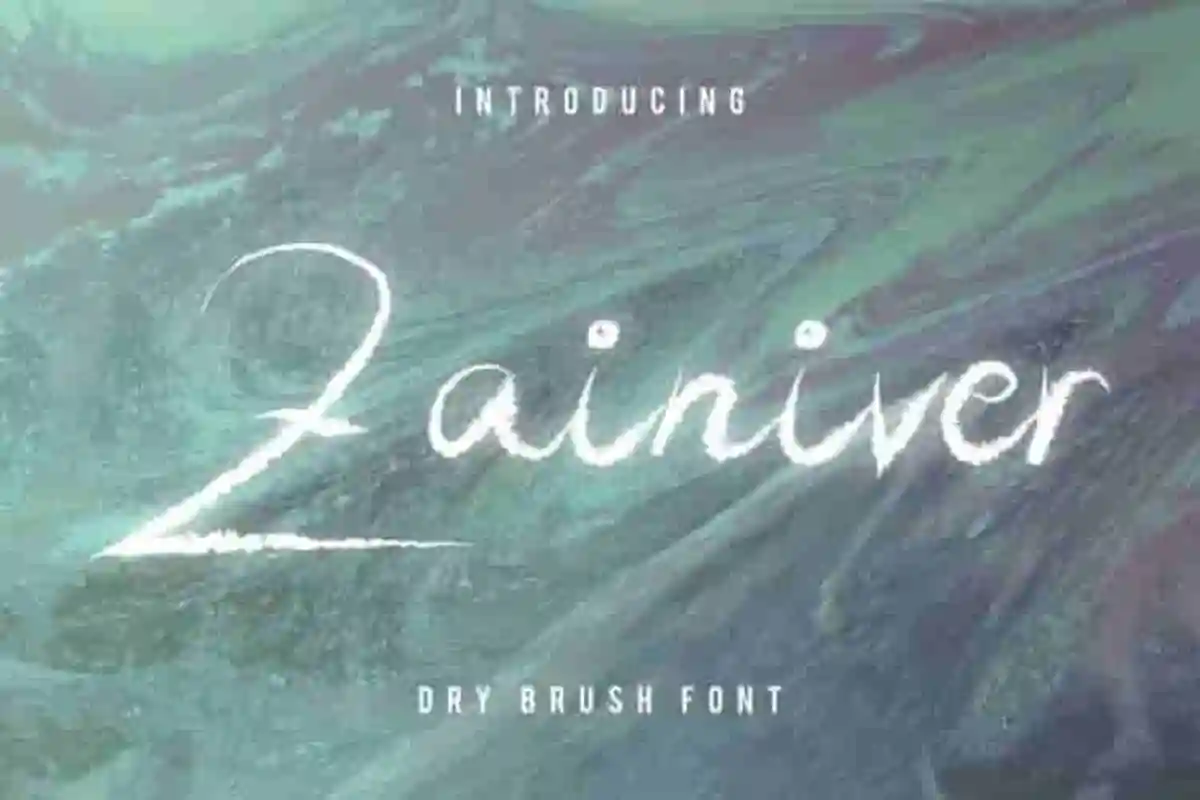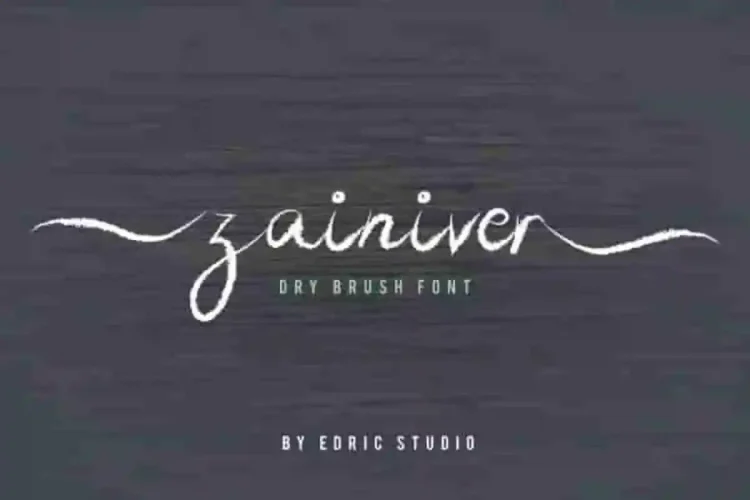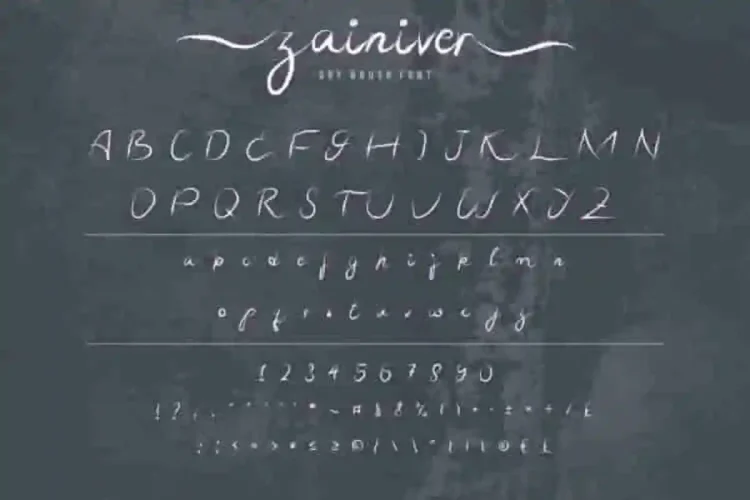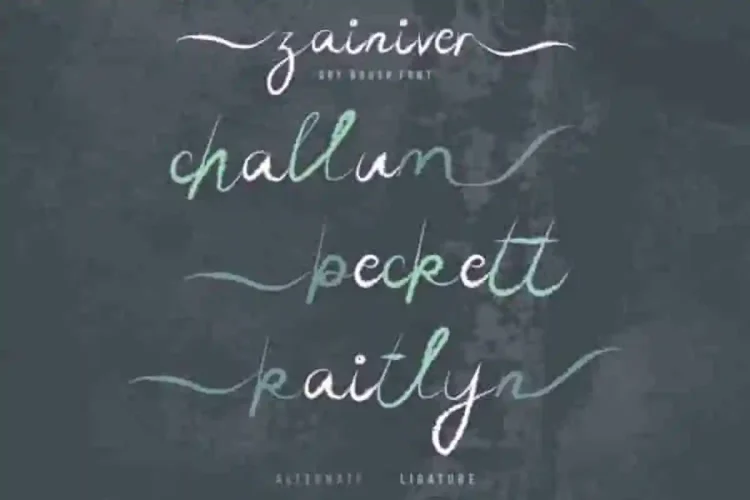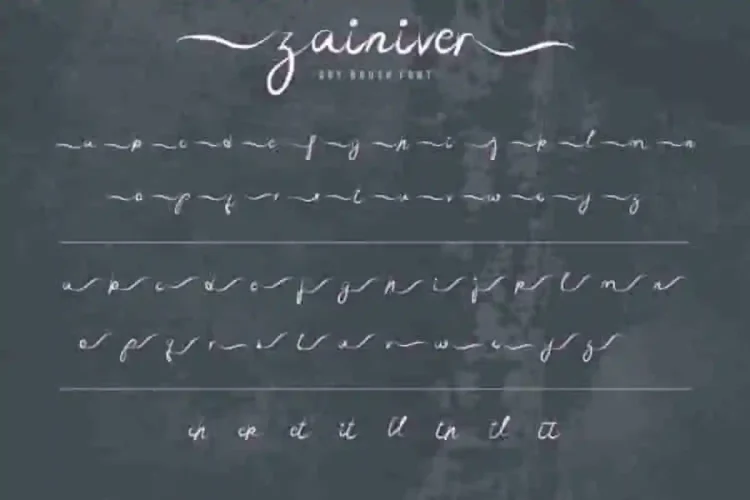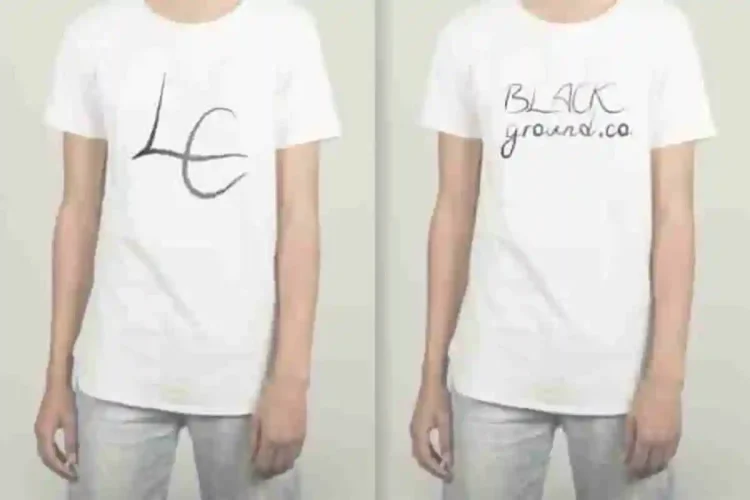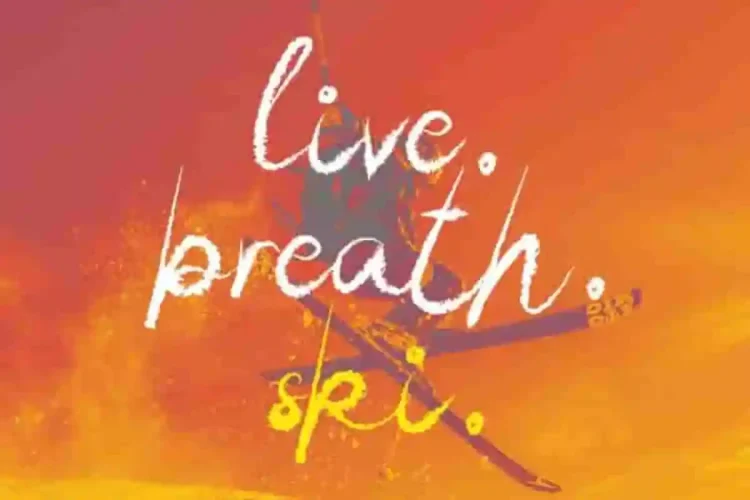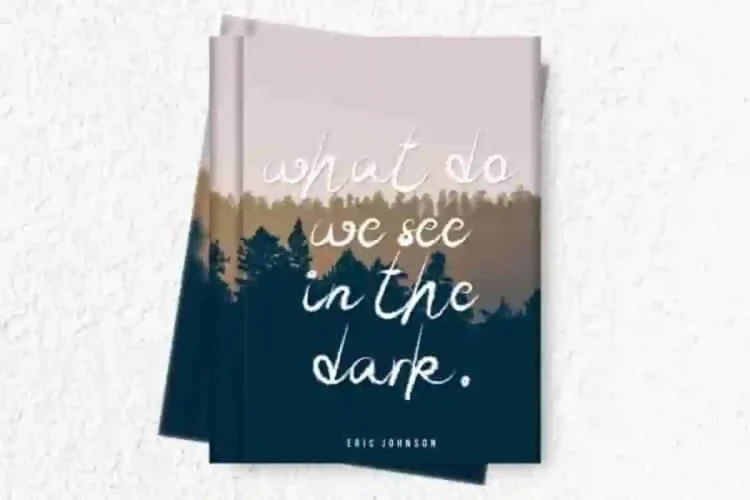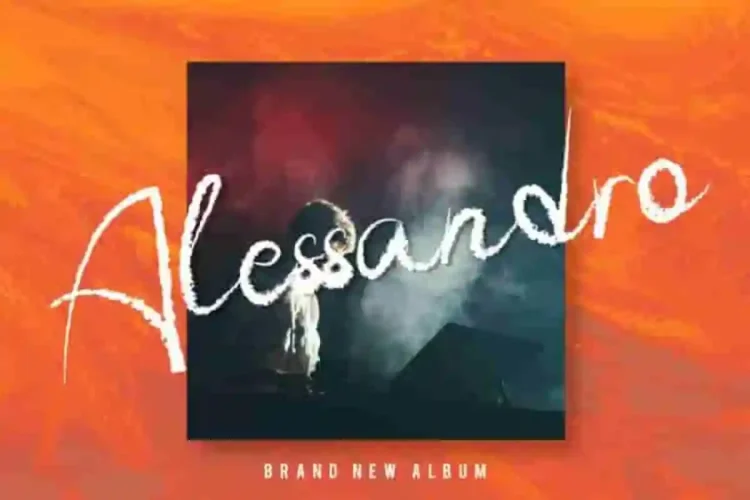
Zainiver Script Brush Font
It is EDRIC Studio, Please meet Our newest unique script/display “dry bruh or chalk style” font : Zainiver Brush Font
Created by our talented typeface artists in Bandung, Indonesia, Zainiver blends sharp edges with smooth curves, delivering a perfect balance of strength and elegance. The artists/designers of this beautiful tyeface is Yasri and Sarah Suci.
Zainiver Brush Font is an exclusive unique textured script typeface with eyecathy style. This font has a stunning characters set, perfectly managed with well spaced and kerning. The theme style of this font will horror,  vintage, unique, misterious, rough, grunge and classic brush dry style.
With its powerful letterforms and clean structure, Zainiver Font is ideal for branding, logo design, posters, headlines, merchandise, social media graphics, and more. Almost all industries will be match for this typeface: events, cafe, gaming, music, etc.